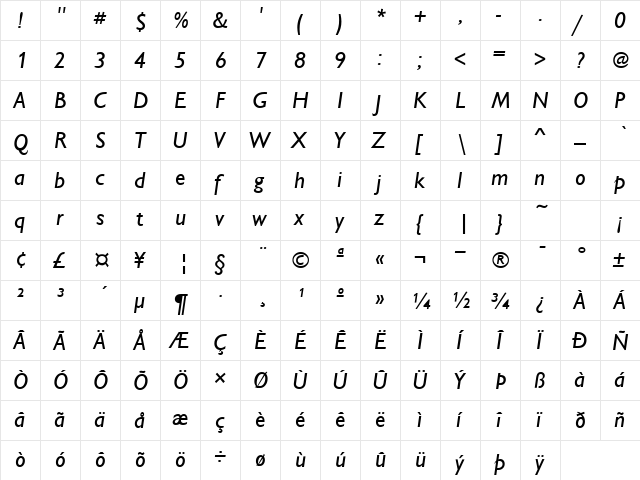
ChantillyM Italic
Design Context for ChantillyM Typeface
ChantillyM takes a measured approach to typography — its balanced proportions and neutral character make it a reliable workhorse for both digital and print work. The dynamic lean of this cut emphasises speed and emphasis in any layout.
Pro Tip: Try ChantillyM for annotation and caption copy alongside an upright companion — the contrast in angle creates a dynamic but ordered typographic system.